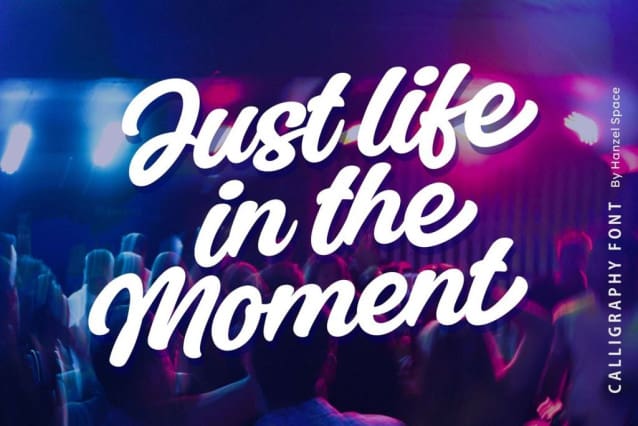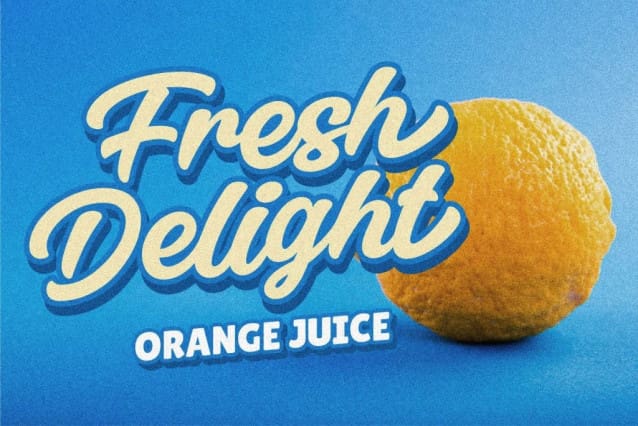
Bellibish Script Font
Bellibish Script Font, This font was created to help you designing logotype or lettering style logo for your Brand or your clients, and you also can use it for designing all of the graphic stuff such as badge, sign, packaging, headline, title, T-shirt/apparel,bPoster, etc.
Bellibish was designed for personal characters such as strong, confidence, dynamic, readable, Energic, dynamic, etc.